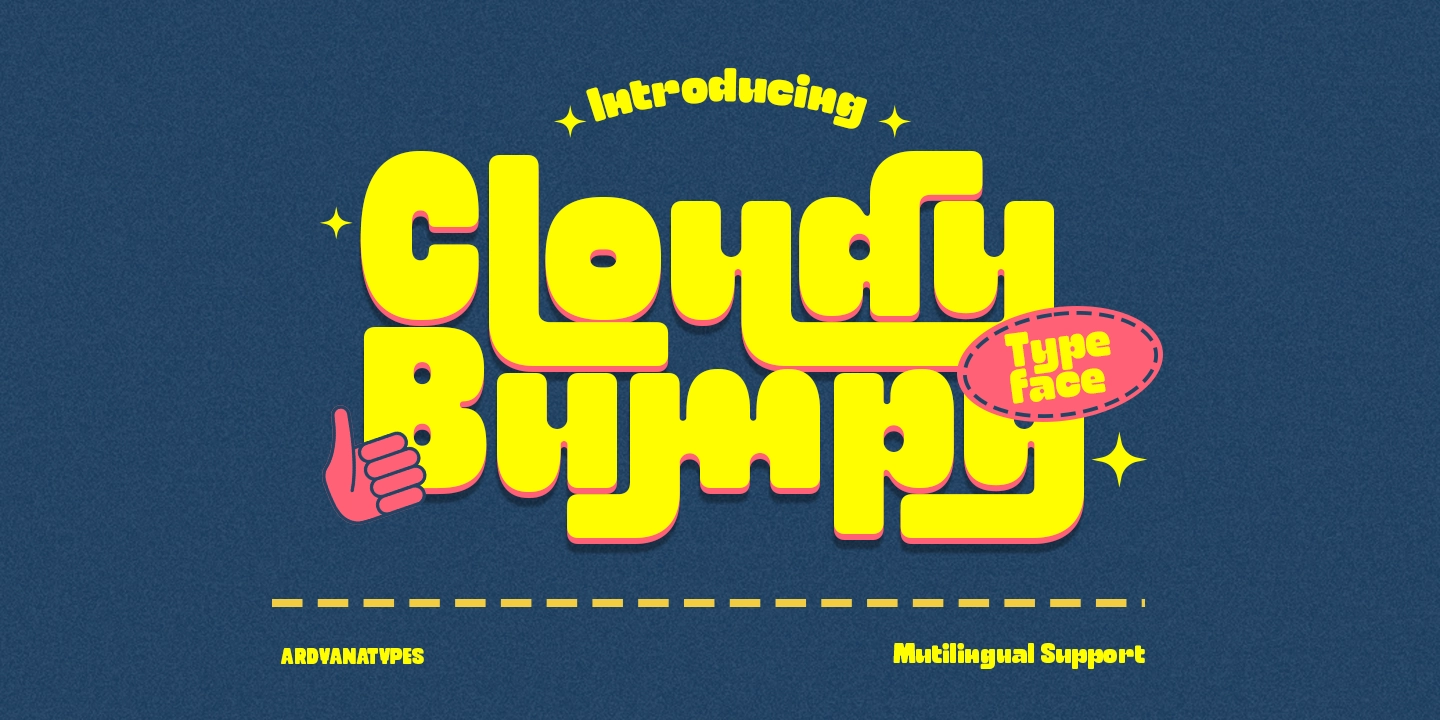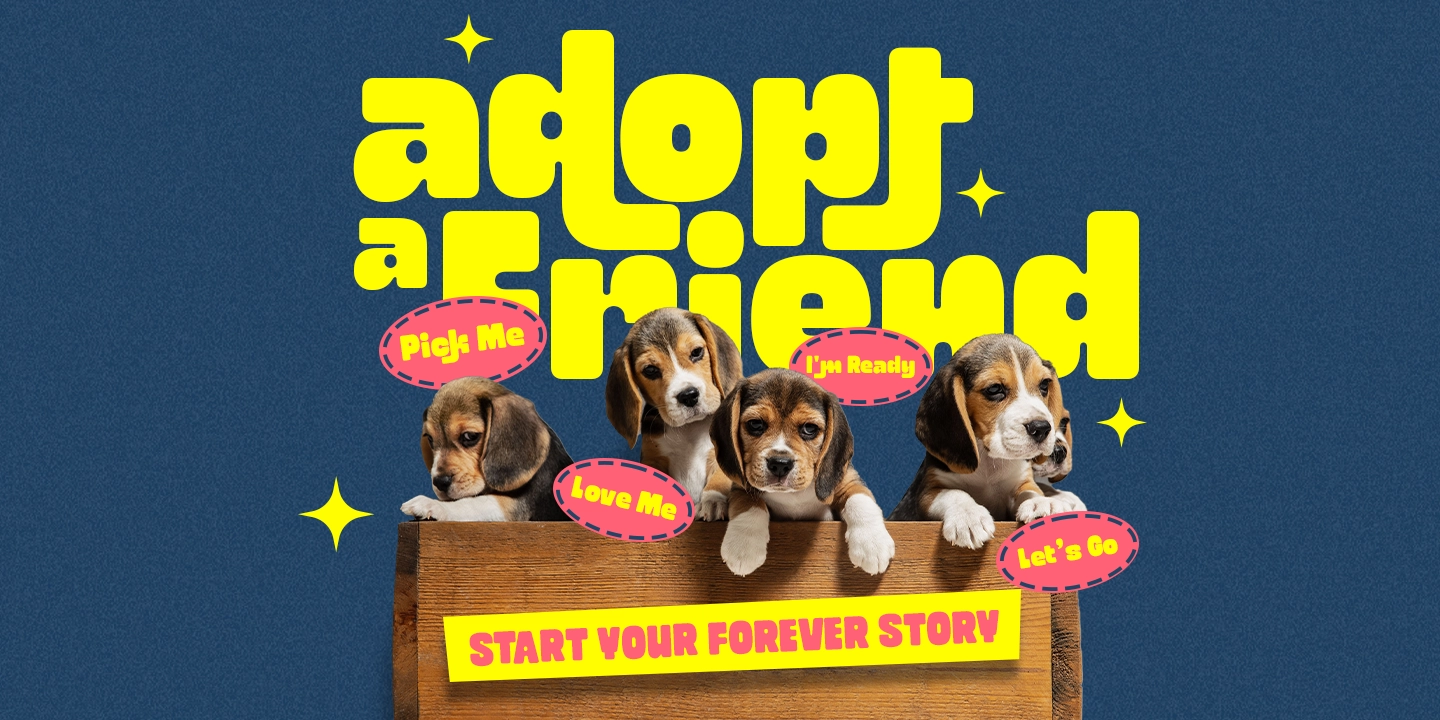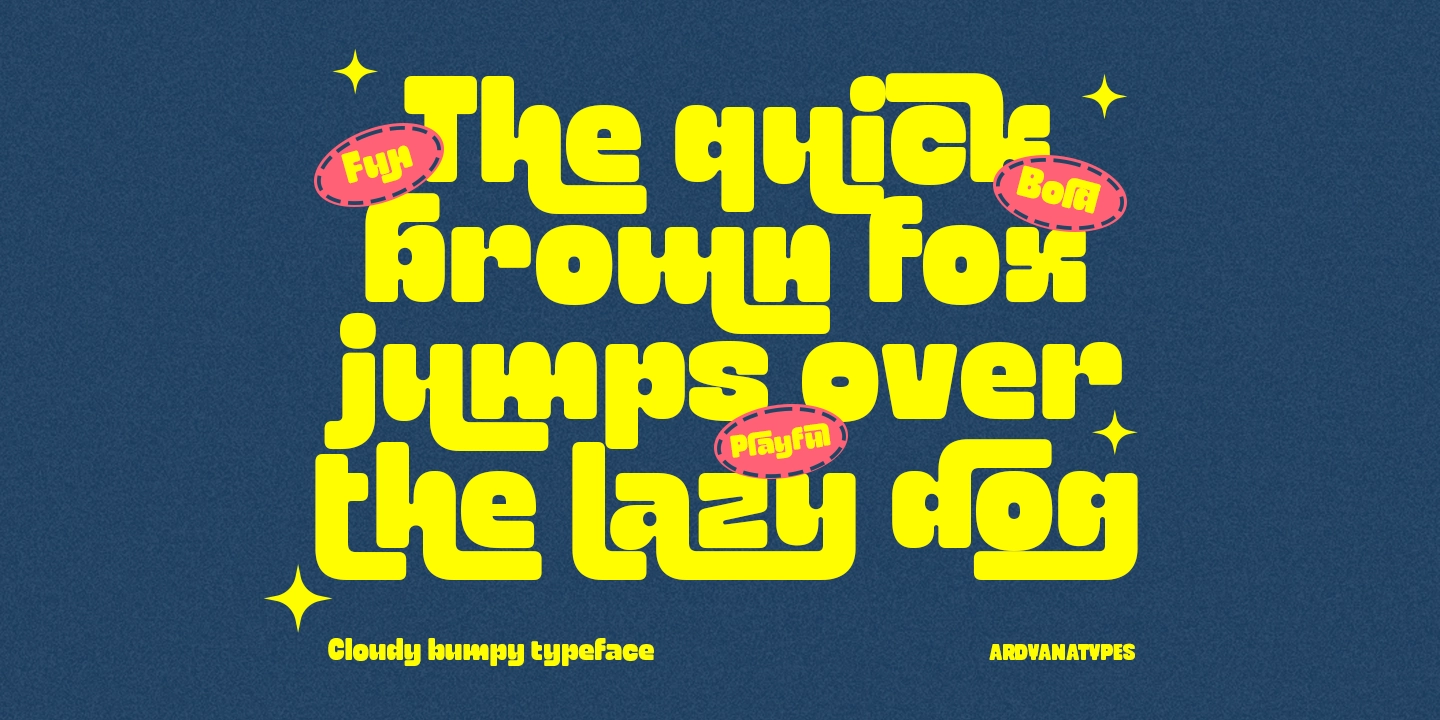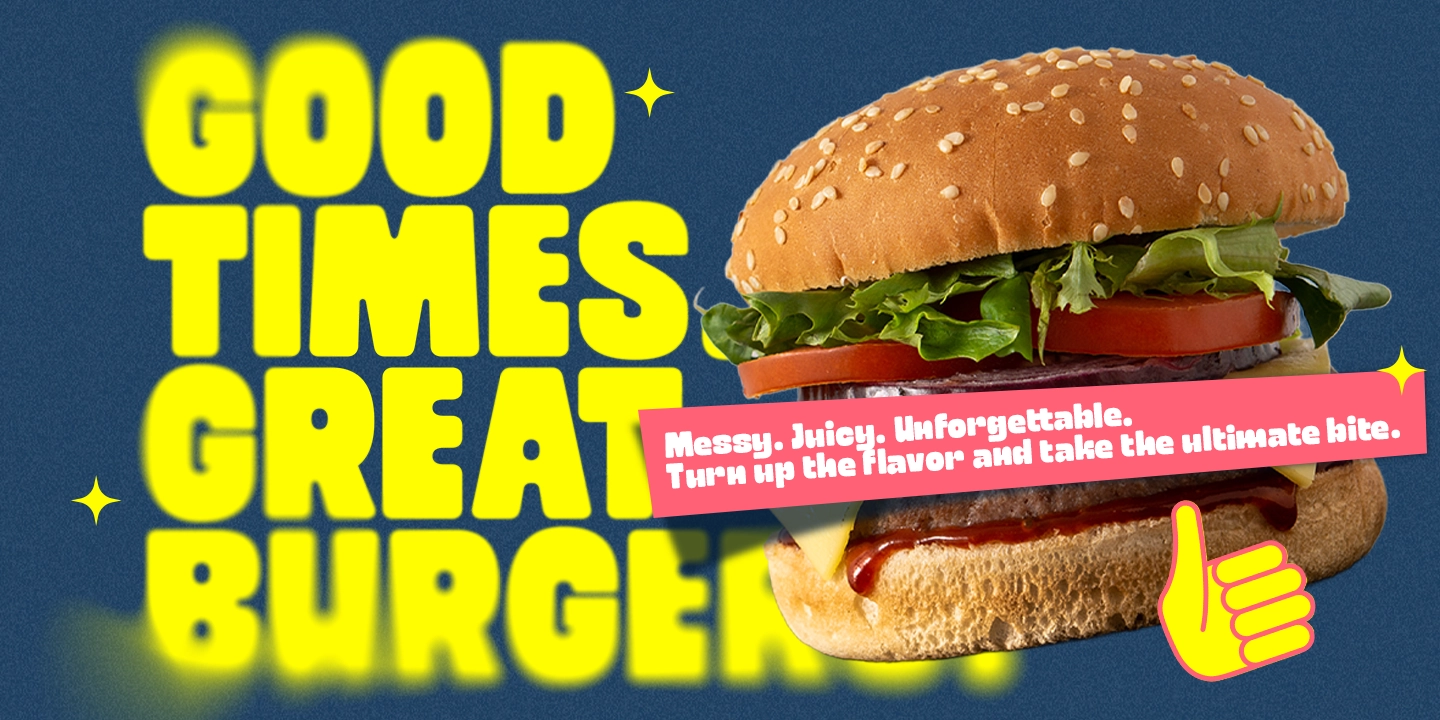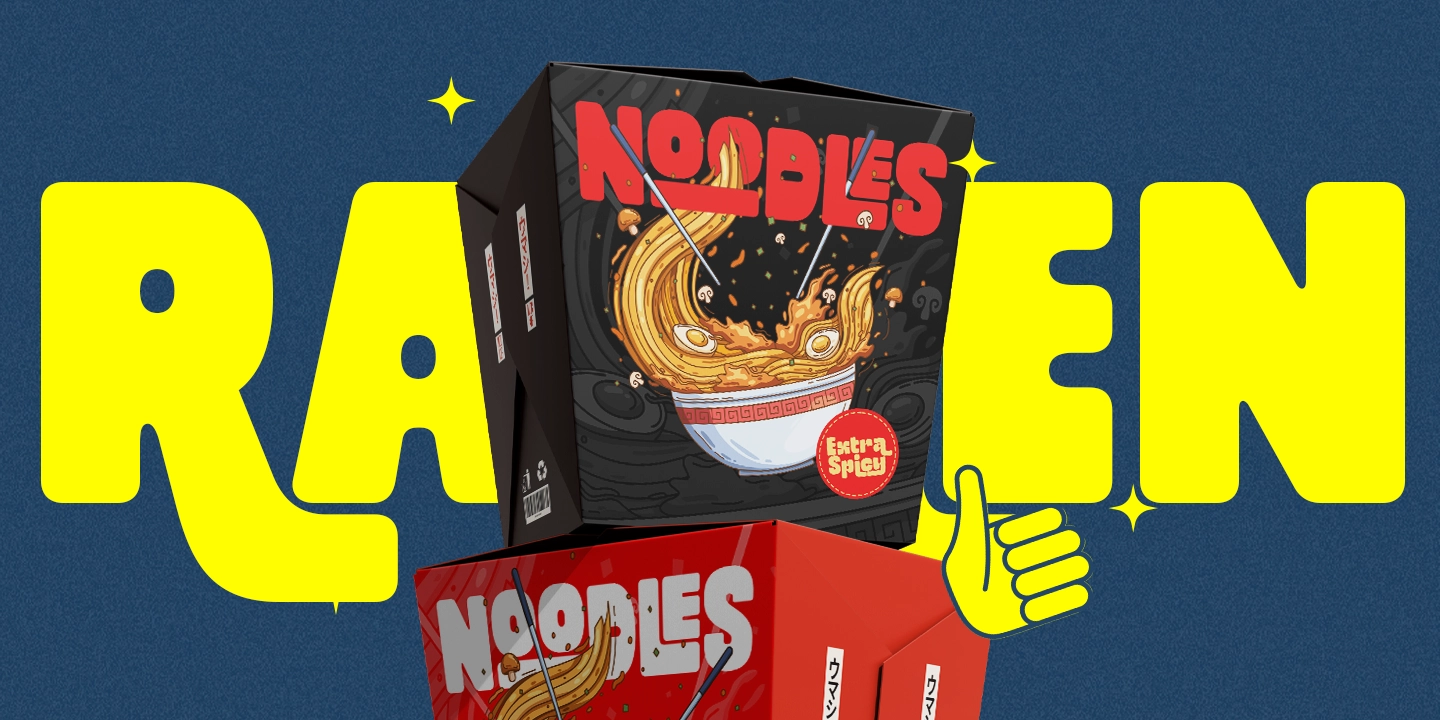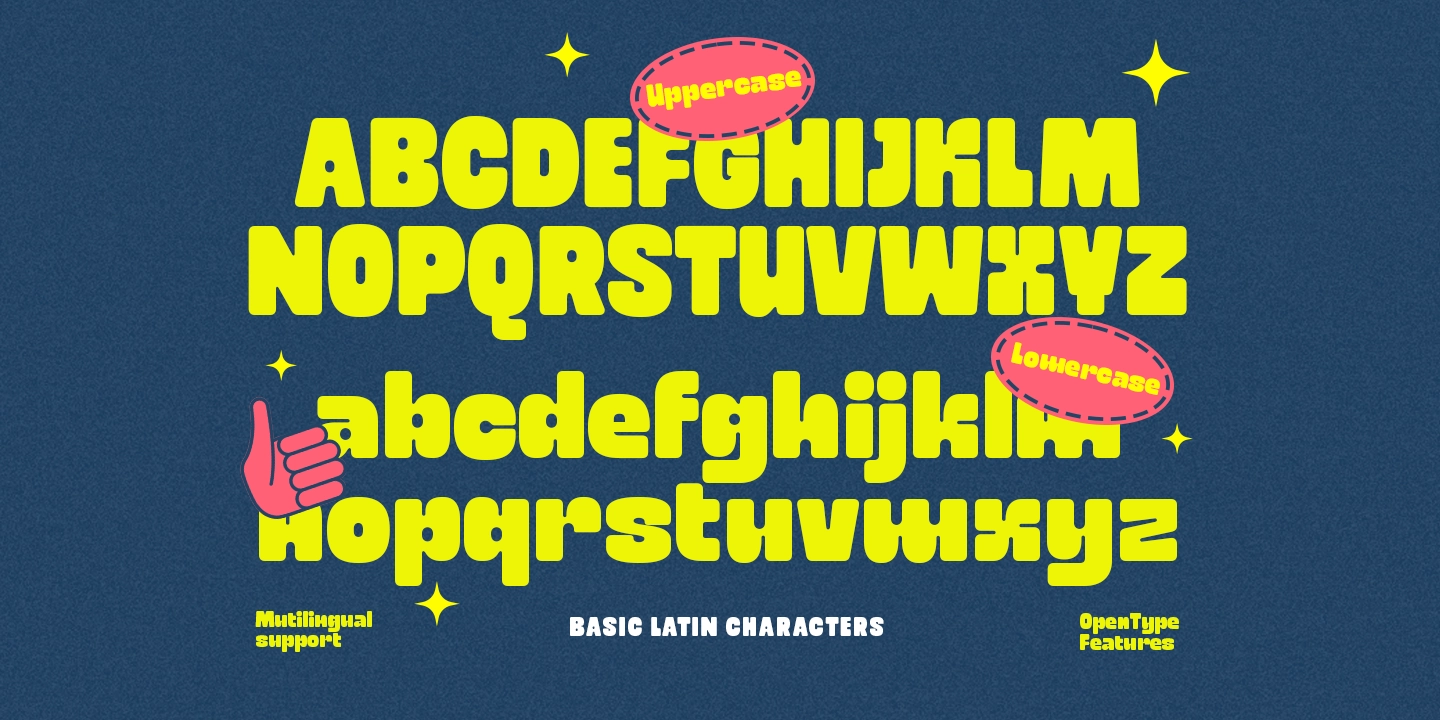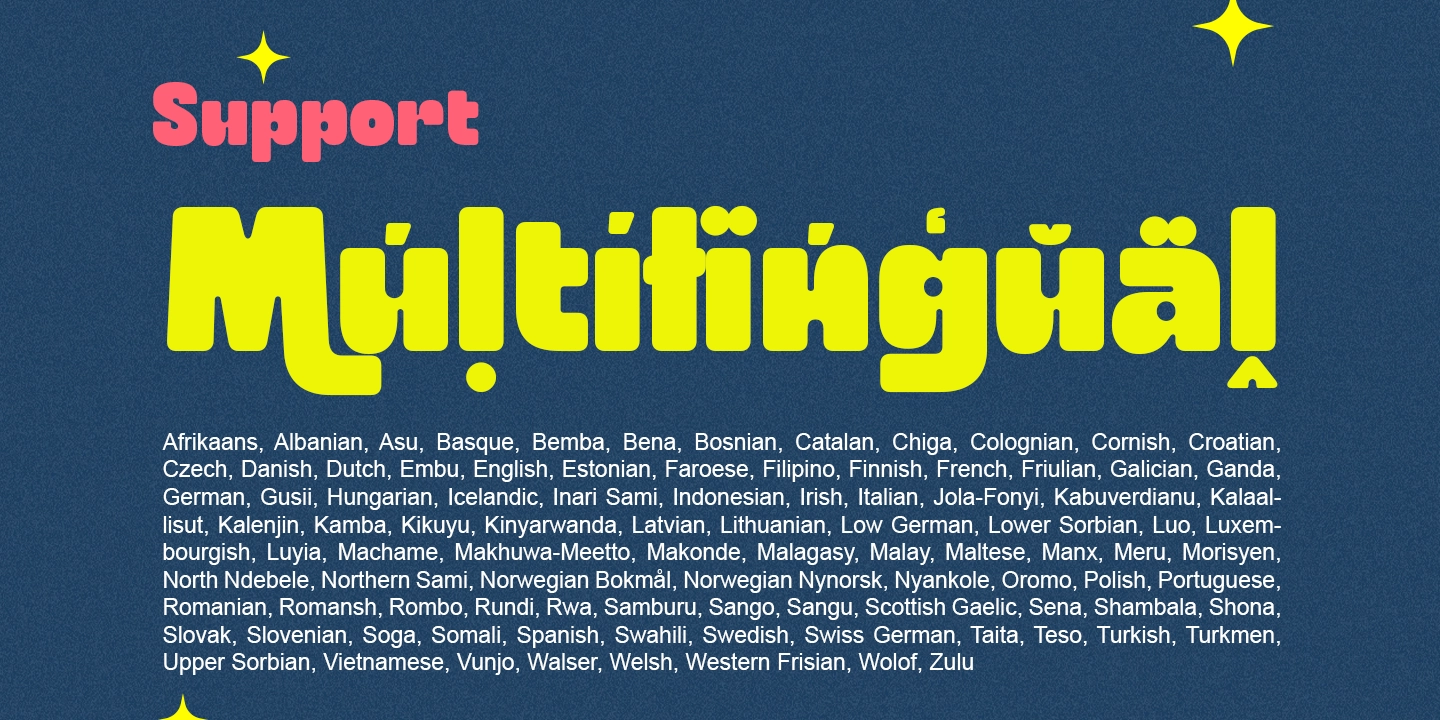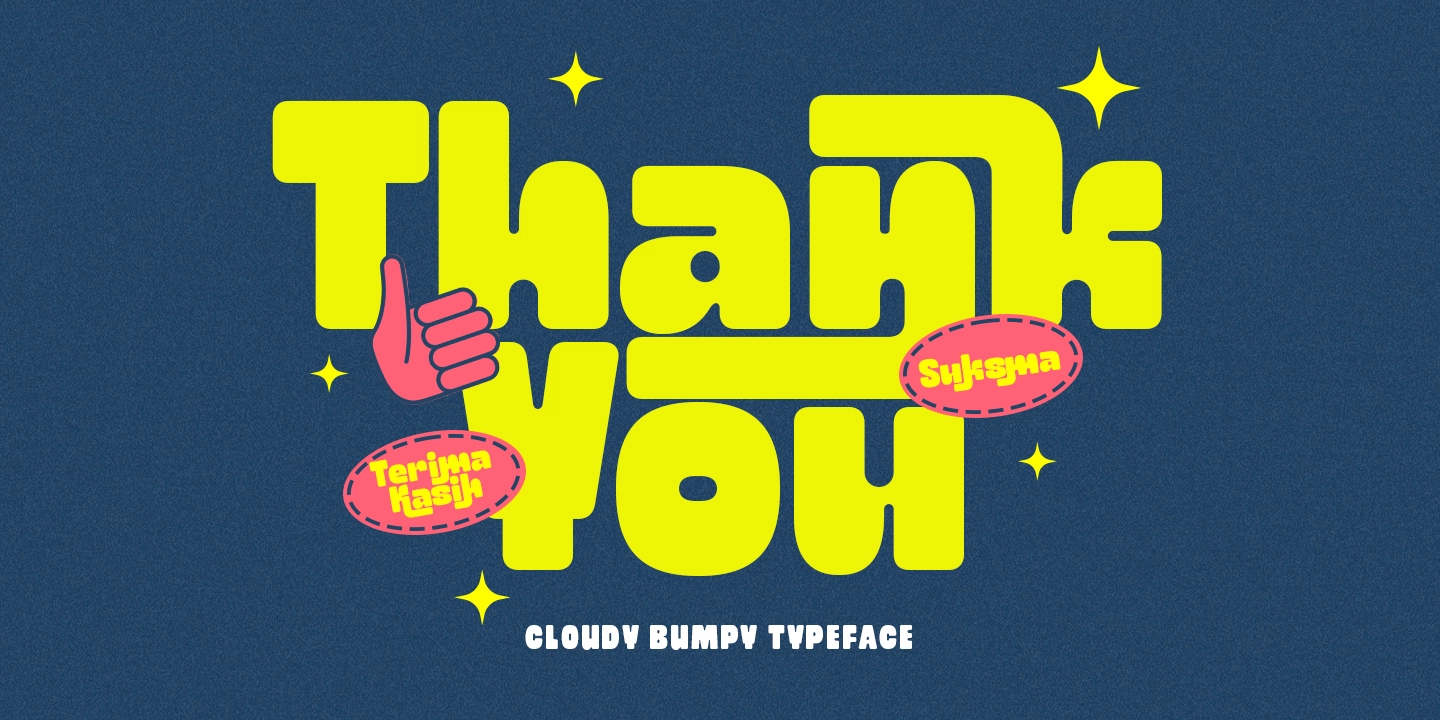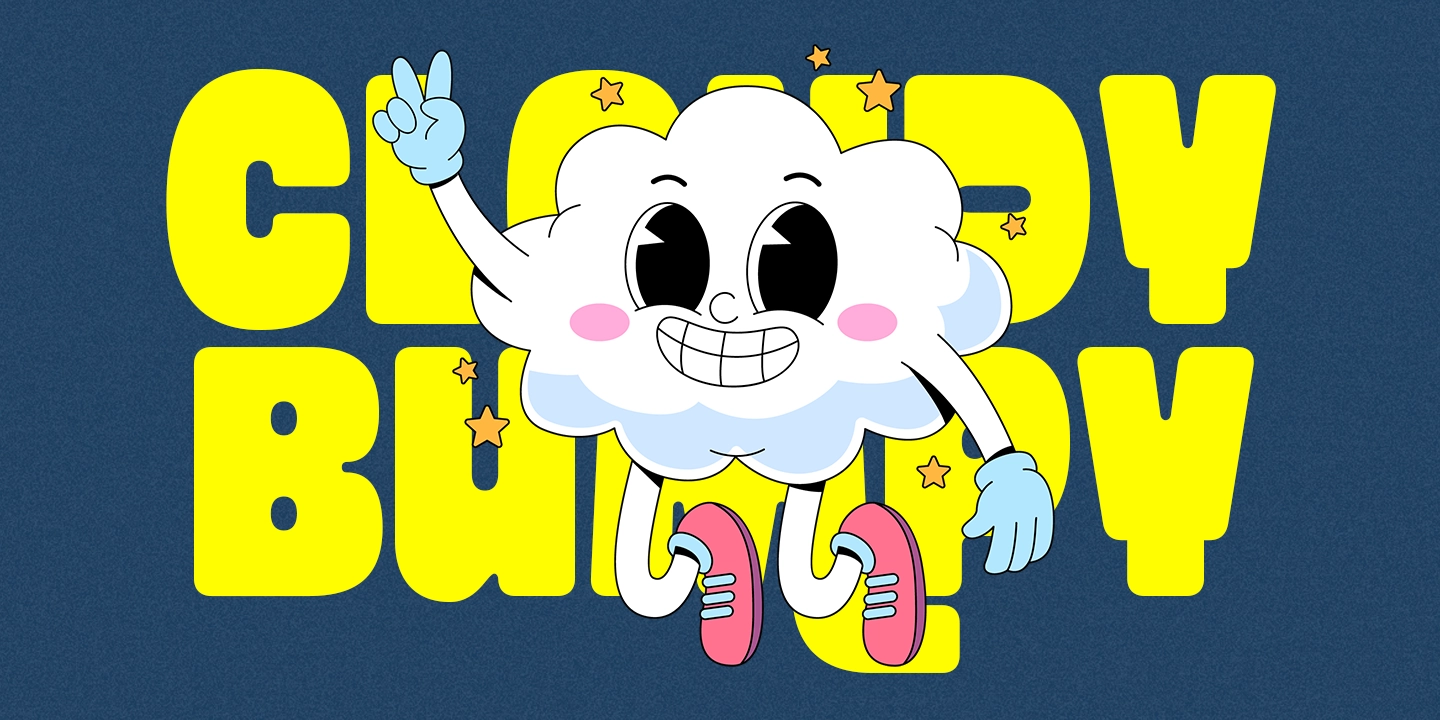
Cloudy Bumpy
Cloudy Bumpy is a super bold display typeface with soft curves and vibrant personality. Designed with thick strokes and playful “bumpy” contours, it delivers a cheerful, energetic, and highly expressive visual impact.
Each character features rounded terminals and solid proportions, creating a strong yet friendly appearance. It works exceptionally well for headlines, food and beverage packaging, kids branding, promotional posters, social media graphics, and merchandise designs that demand immediate attention.
Equipped with extensive OpenType features, Cloudy Bumpy includes stylistic alternates, ligatures, and multiple character variations that allow designers to create dynamic and less repetitive typography compositions. This flexibility transforms simple words into visually engaging statements.
Cloudy Bumpy is more than just a cute font — it’s a bold personality typeface built to stand out and leave a memorable impression.